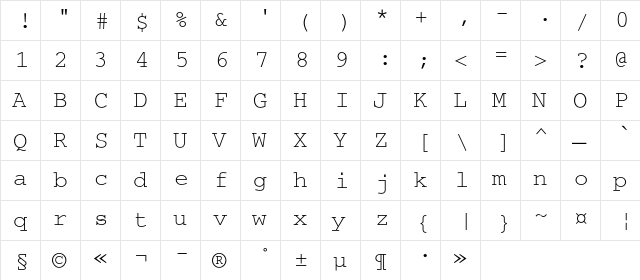
CourierC Regular
Design Context for CourierC Typeface
CourierC uses fixed-width spacing throughout, giving it the structured, systematic character associated with coding environments and technical documentation.
Pro Tip: Pair CourierC with a proportional sans for UI contexts where code-style labels and regular body copy need to coexist.